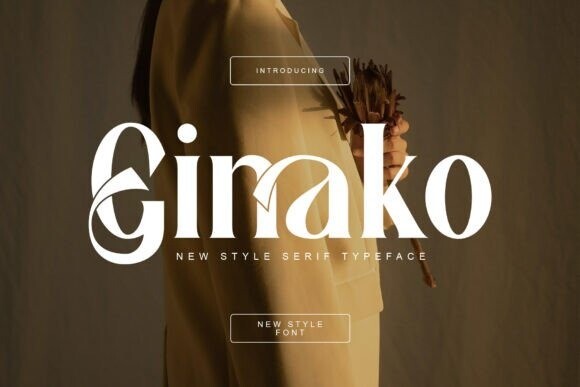
Ginako Font
Ginako Font is a elegant and classy serif typeface – This font is both modern and nostalgic and works great for logos, magazine, social media. Already matched up and ready to be used together for your next design! For those of you who are needing a touch of elegant, stylish, classy, chic and modernity for your designs, this font was created for you!